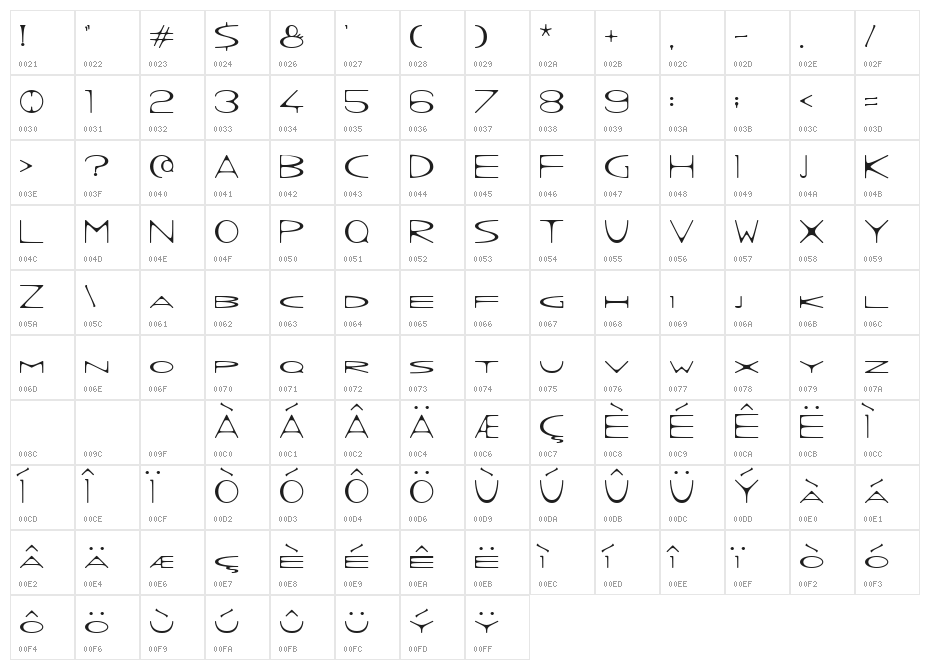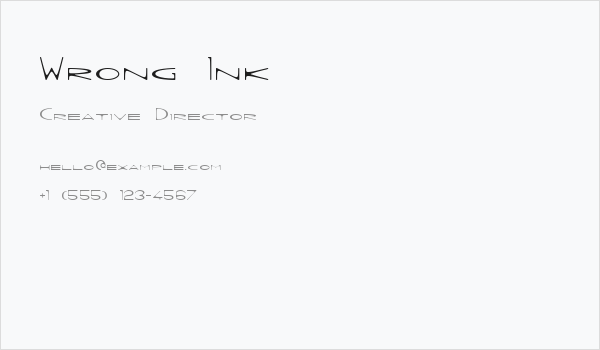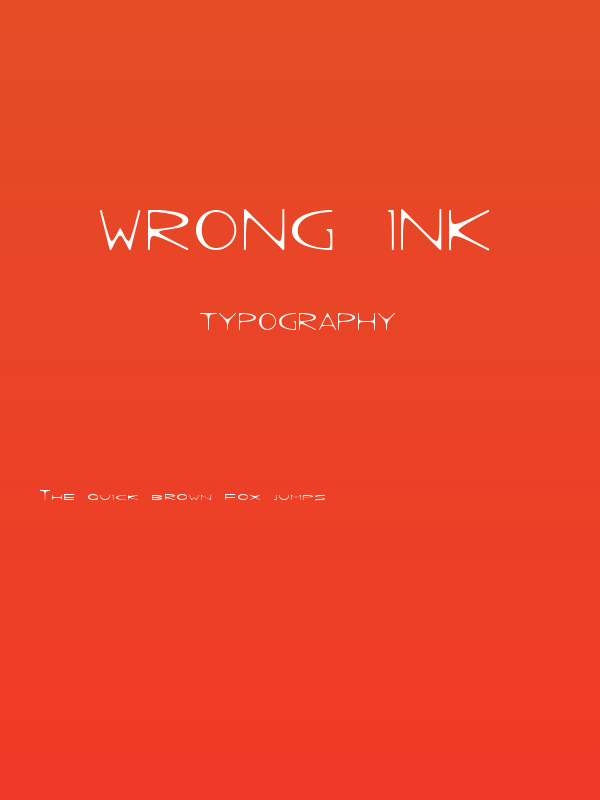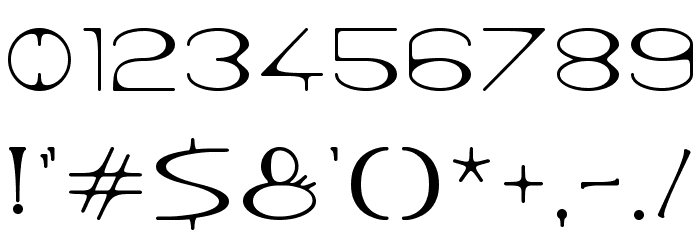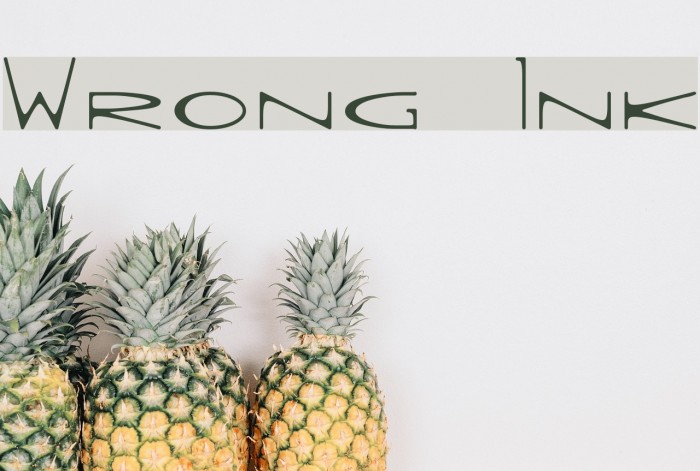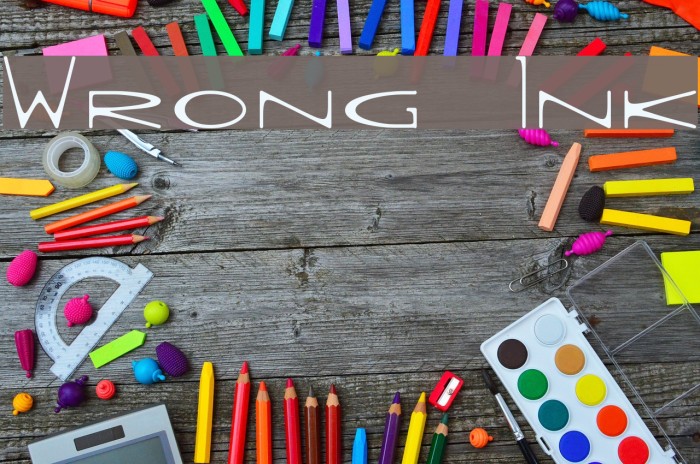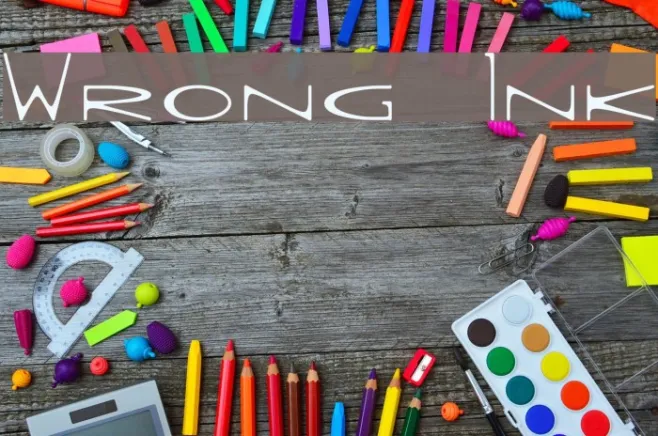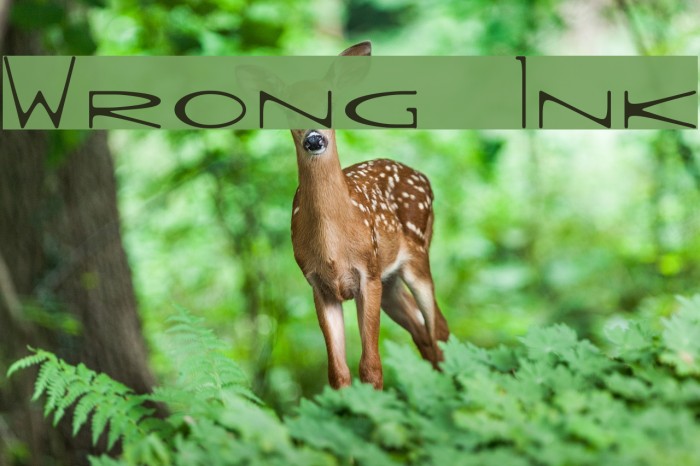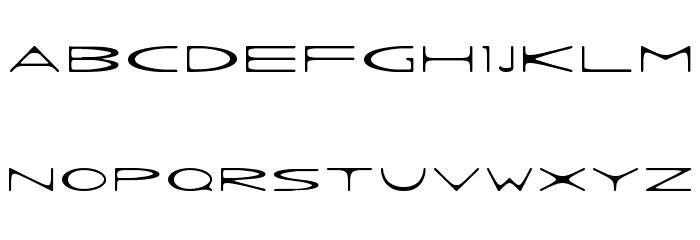
Wrong Ink Font
Wrong Ink Description
This font features a unique and artistic design with a playful and quirky style. The characters are crafted with a mix of sharp angles and smooth curves, giving it a distinct and modern appearance. The uppercase letters have a bold presence, while the lowercase letters maintain a consistent flow. Numbers and special characters are designed with the same creative flair, making them stand out. The overall look is both futuristic and retro, suitable for projects that require a touch of creativity and individuality.
| Proposed Projects | Ideal for creative projects such as posters, album covers, branding, and digital art. |